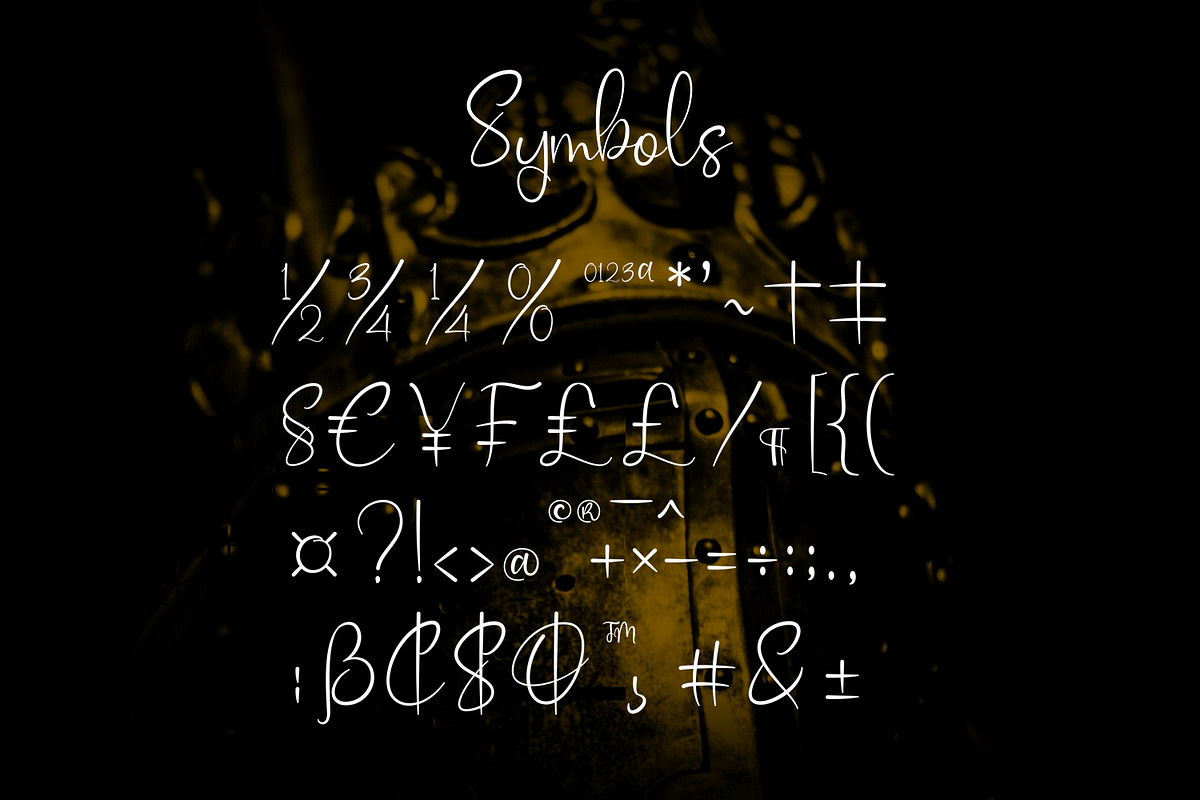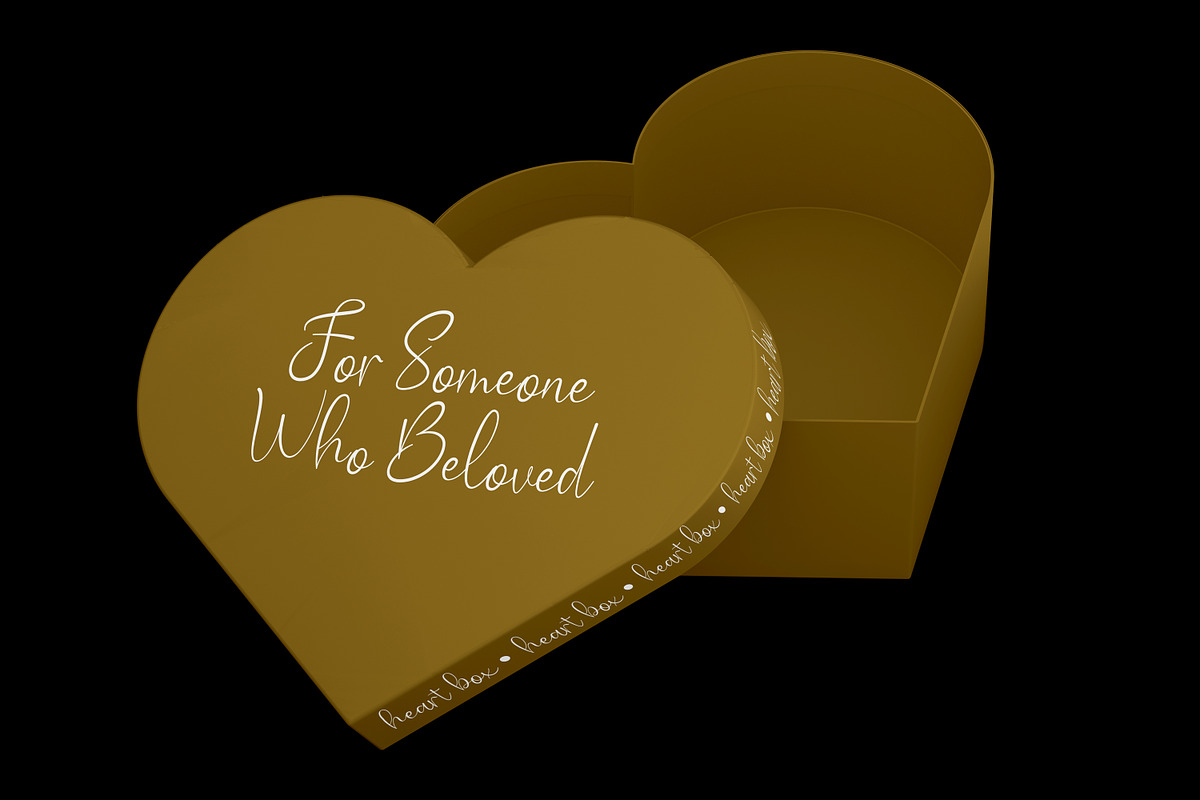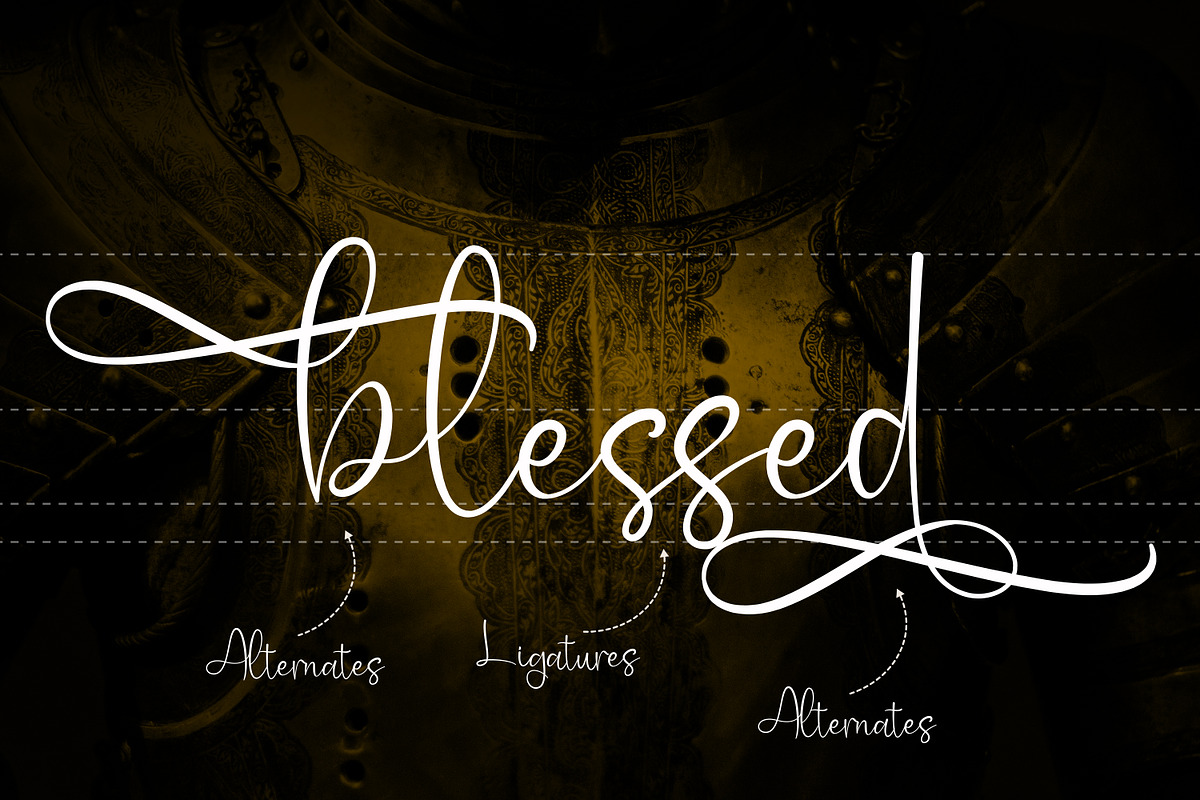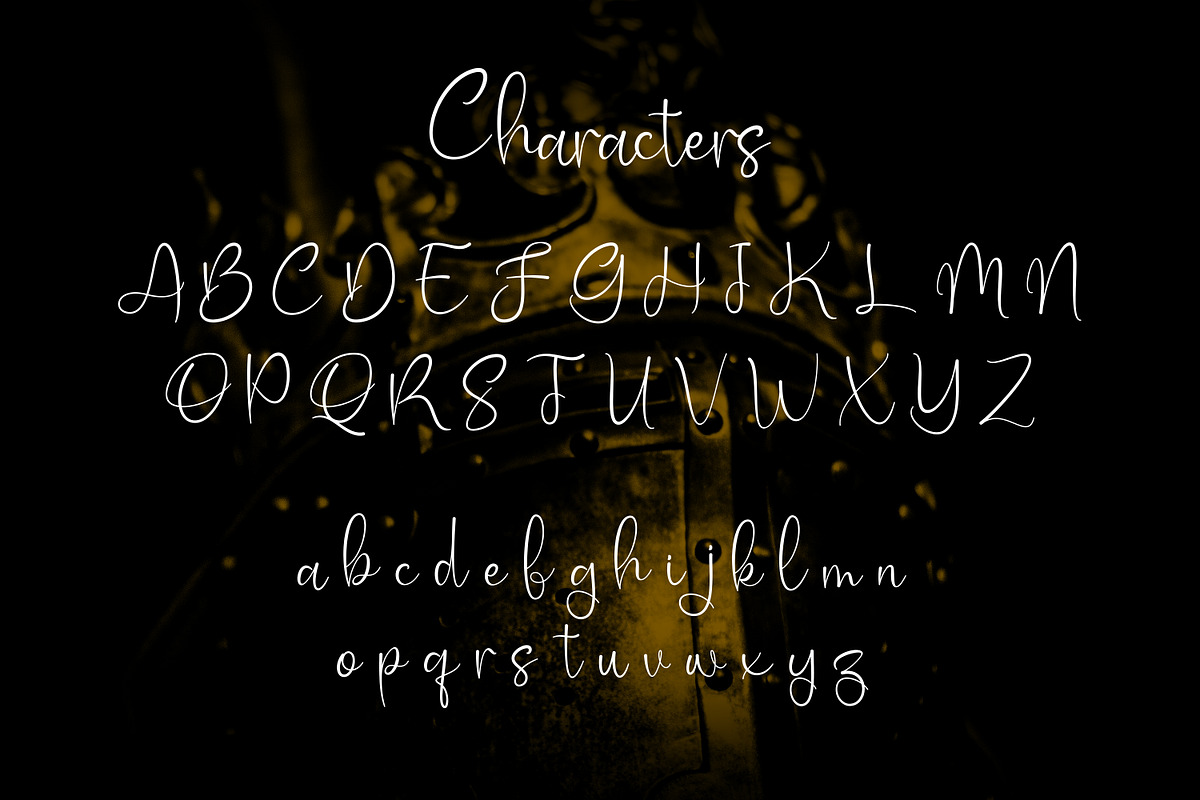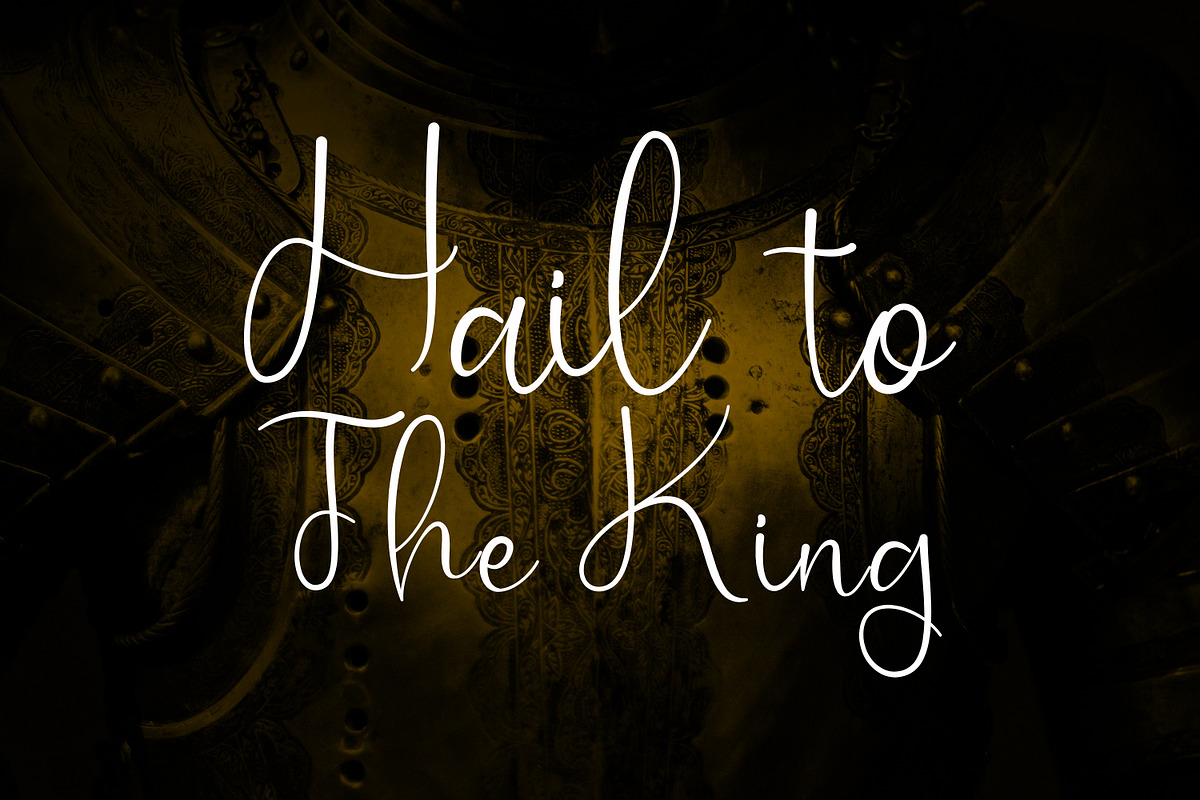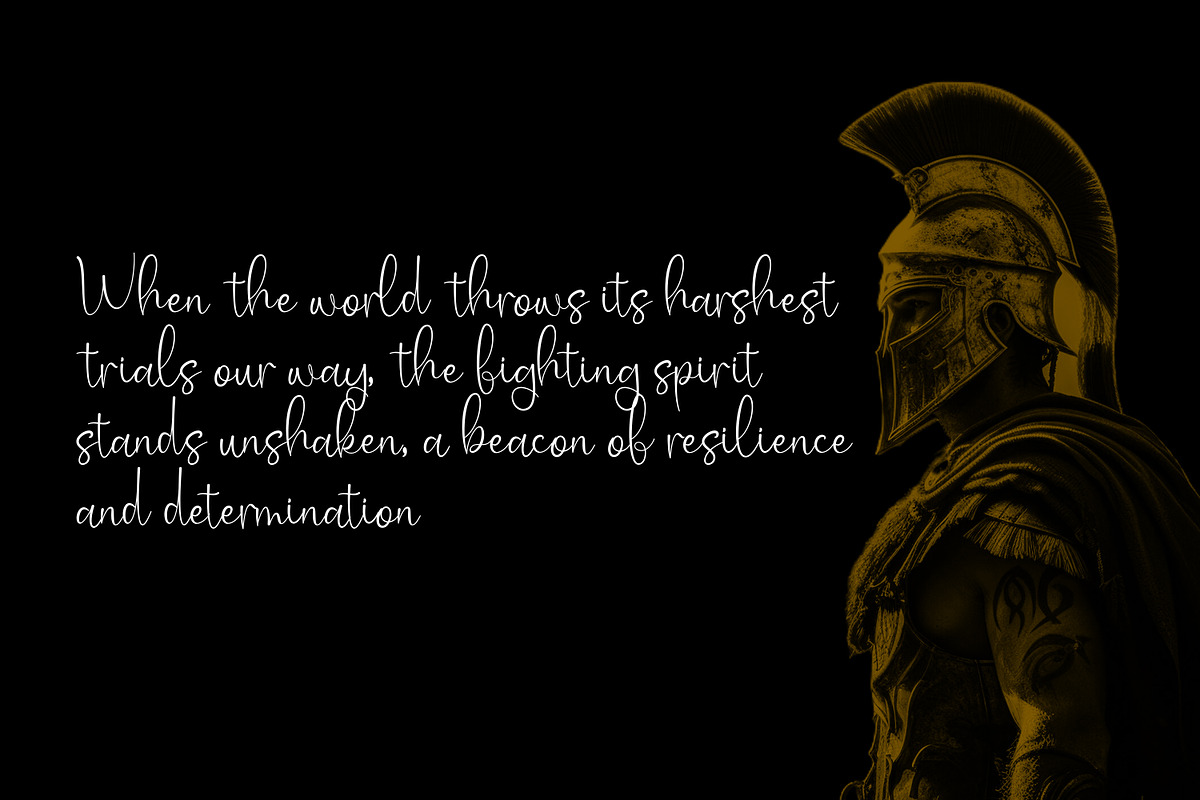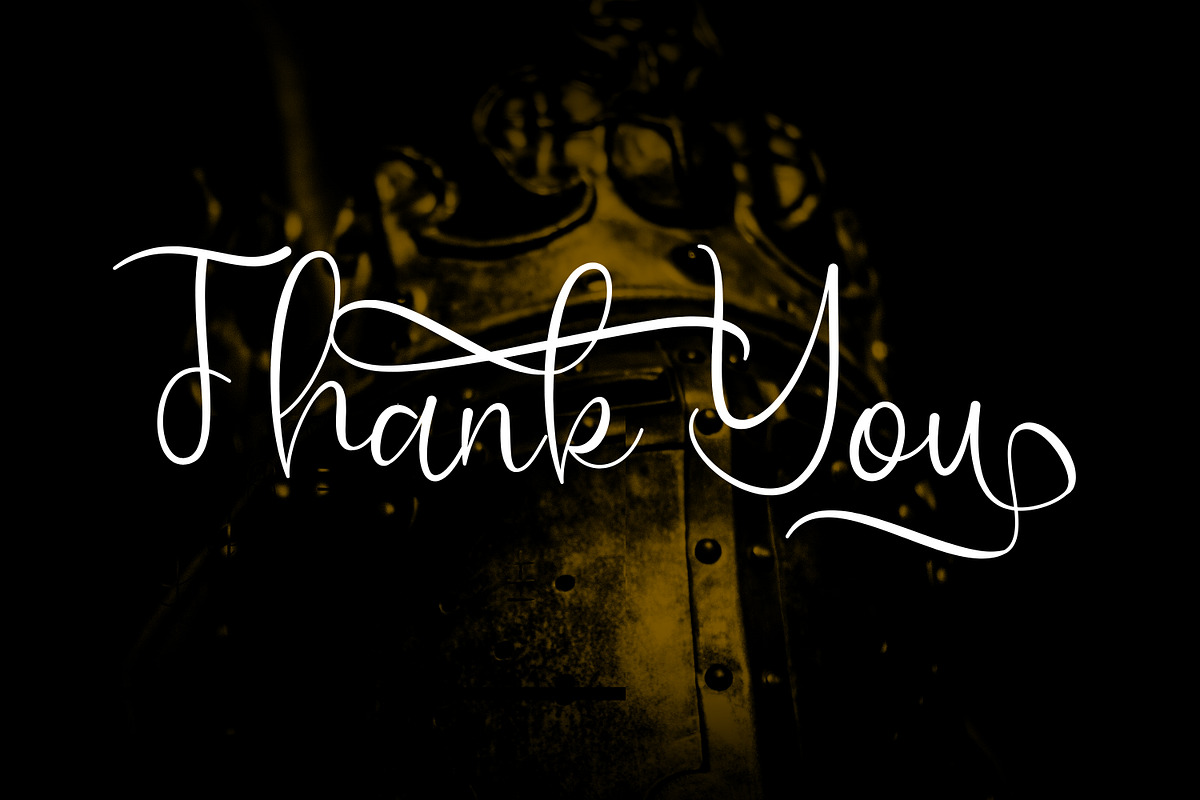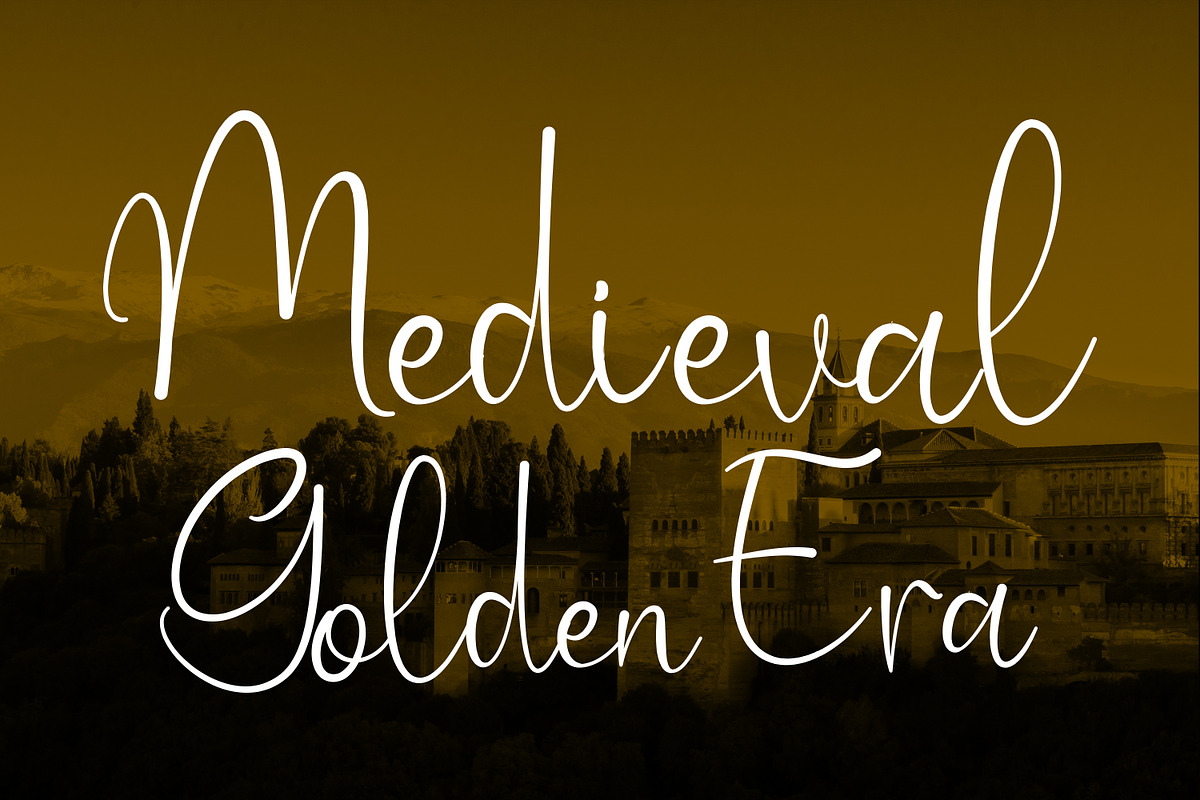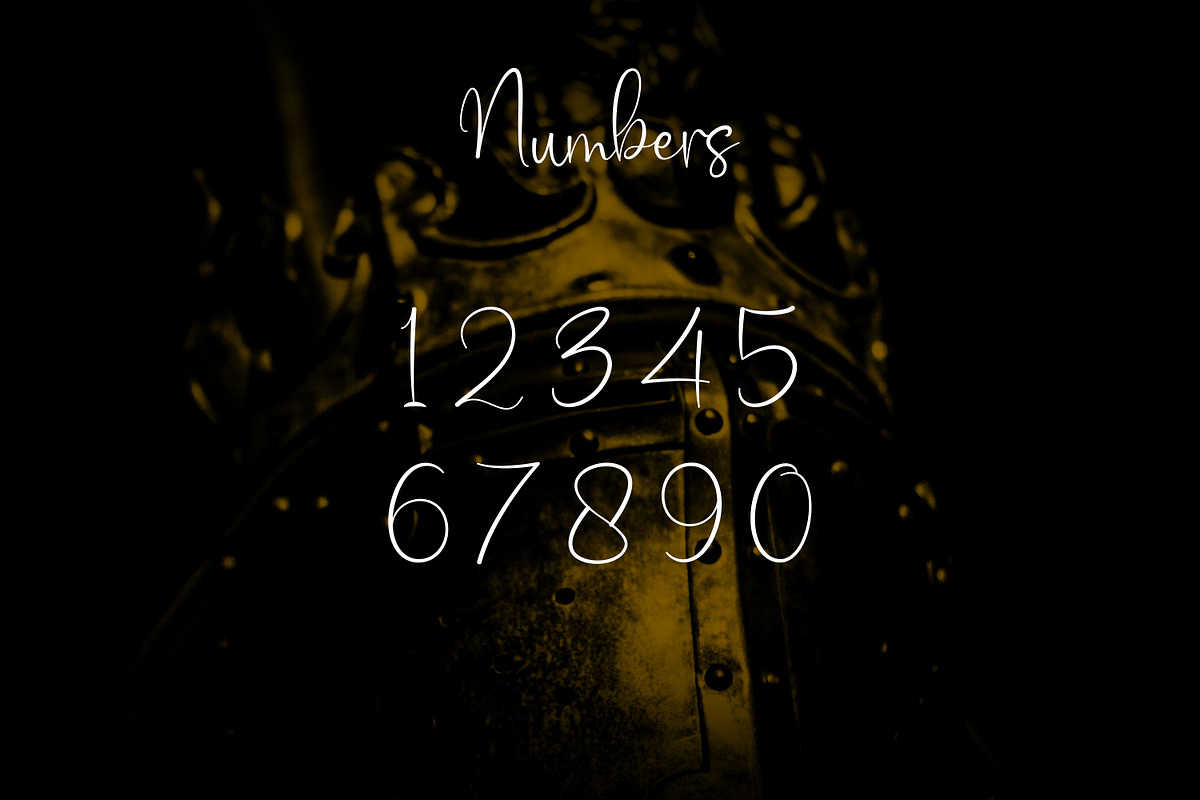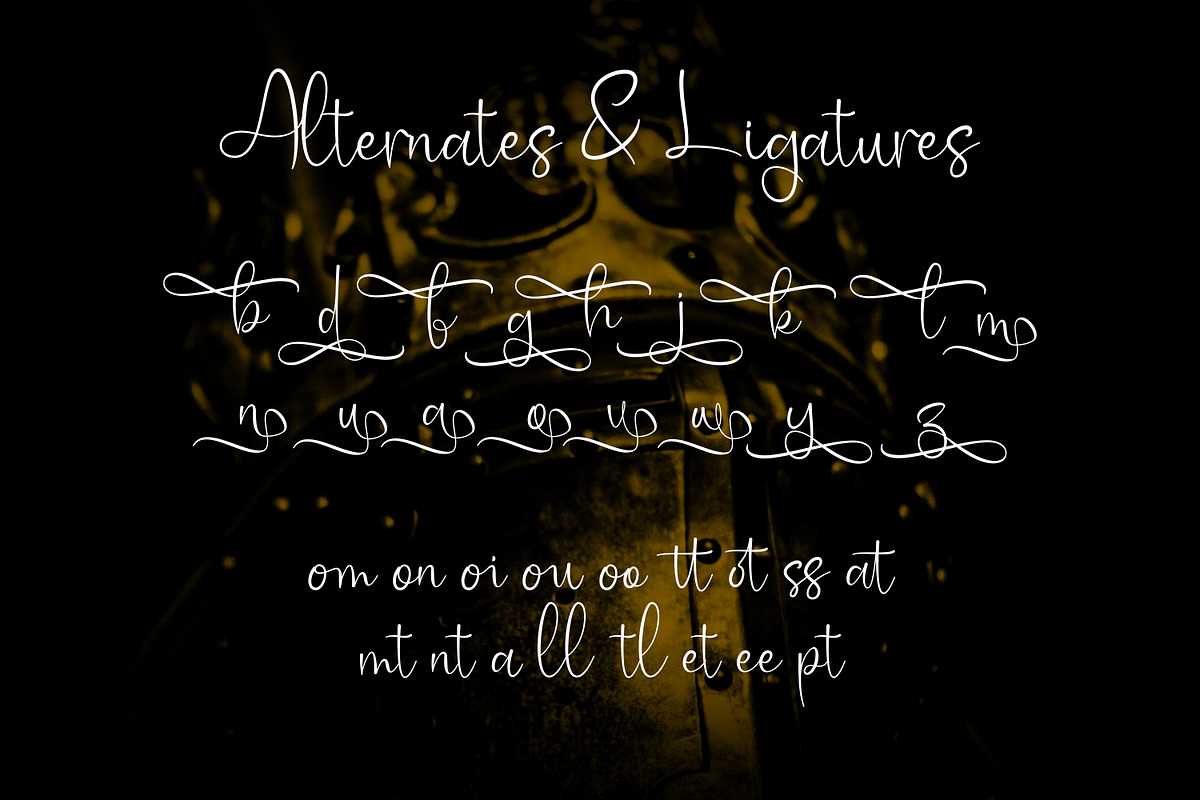
Boykwet Script - Stylish Font
Boykwet Script - Stylish Font, from Favowrite Studios, is a premium Font, perfect for any project that requires a distinctive, and premium feel.
- Ligature, Alternate & amp; Multilingu